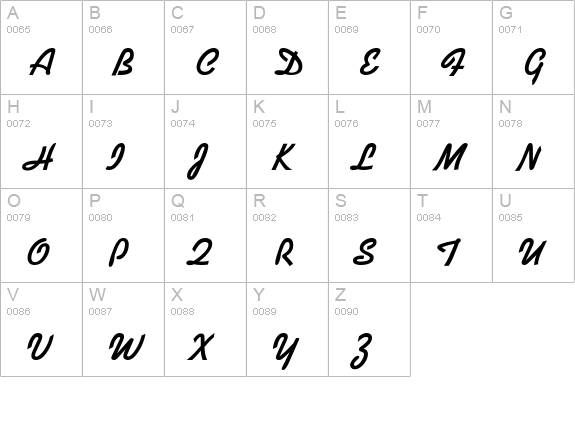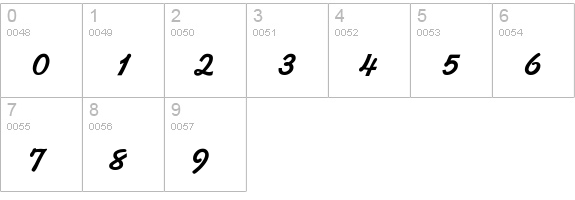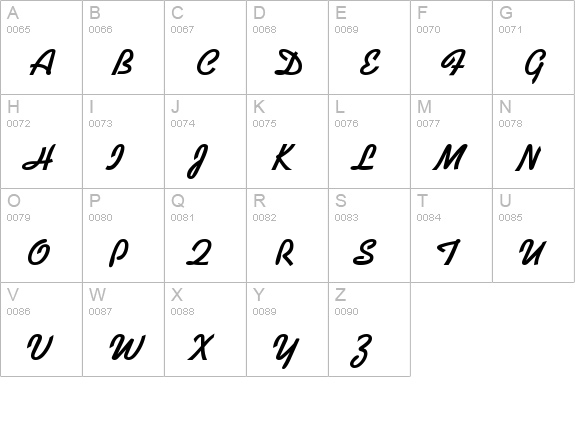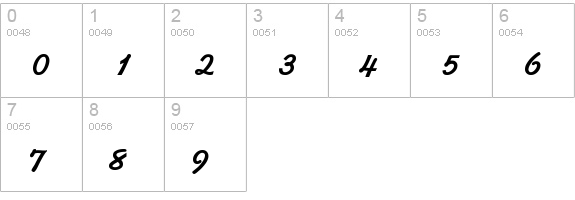
Kaplan-Bold Font Details
Kaplan-Bold is a strong, high-contrast variant in the Kaplan typeface family \xE2\x80\x94 well suited to headlines, attention-grabbing titles, and strong calls-to-action.
Introducing Kaplan-Bold, a stunning font that exudes confidence and elegance. With its bold and commanding appearance, this font is perfect for making a statement in any design project. Featuring strong and distinct letterforms, Kaplan-Bold demands attention and leaves a lasting impression. Its clean lines and sharp edges give it a modern and sophisticated look, making it ideal for a wide range of applications including branding, advertising, headlines, and more. What makes Kaplan-Bold even more appealing is that it is freely available to download at FontsMarket.com. This means that you can enhance your designs with this exceptional typeface without breaking the bank. With just a few clicks, you can add a touch of professionalism and style to your creations. Whether you're designing a logo for a high-end brand, creating eye-catching posters, or crafting impactful social media graphics, Kaplan-Bold is the perfect choice. Its versatility allows it to adapt to various design styles, ensuring that it will always make a statement. So why wait? Unlock the potential of your design projects with Kaplan-Bold and experience the power of this remarkable font. Download it for free at FontsMarket.com and let your creativity soar.